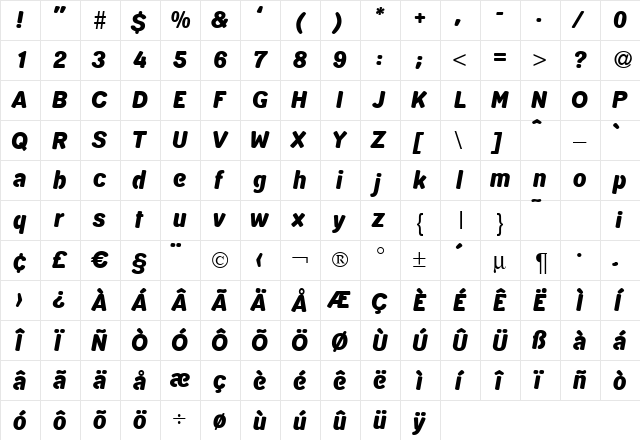
D820-Sans Regular
D820-Sans takes a measured approach to typography — its balanced proportions and neutral character make it a reliable workhorse for both digital and print work.